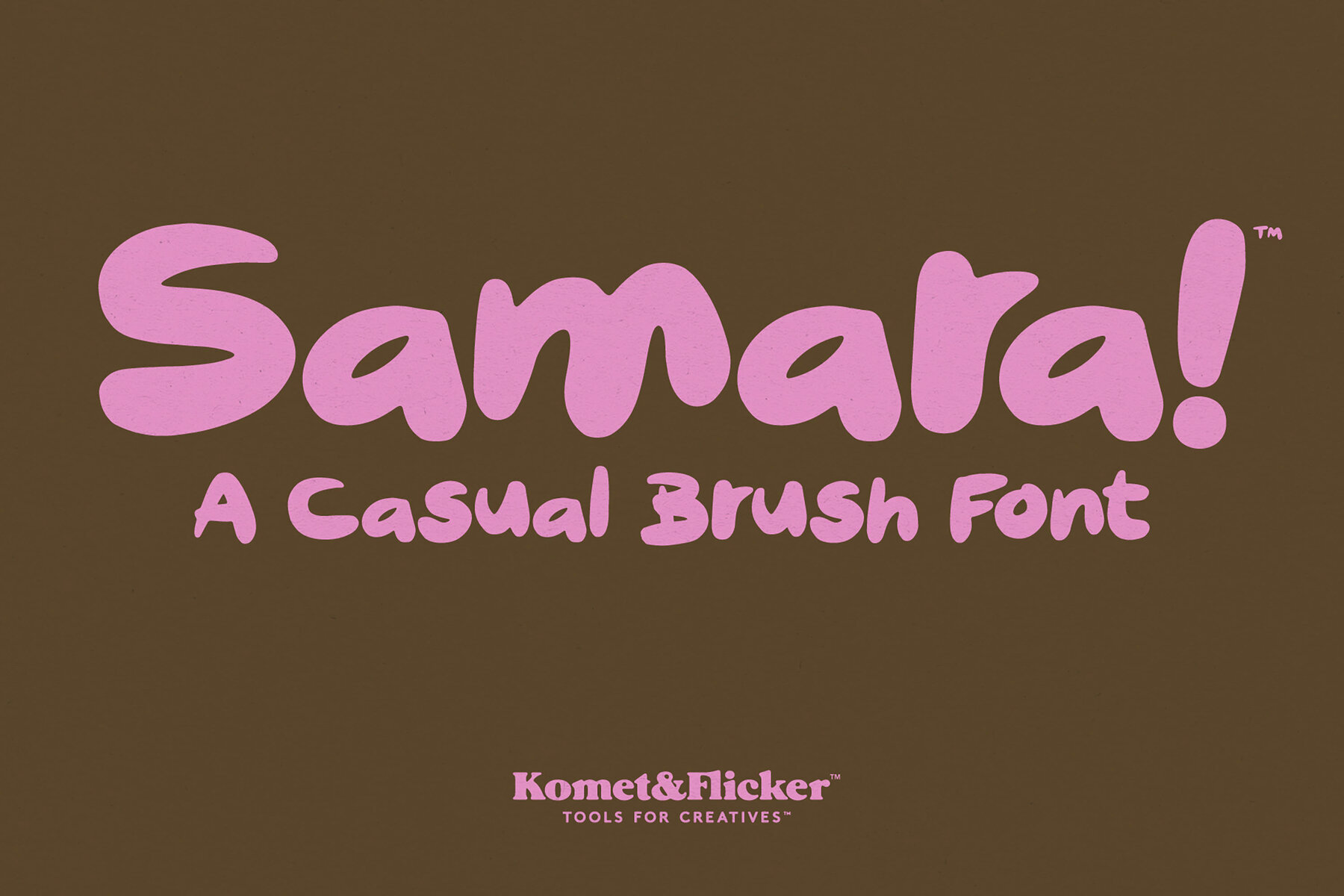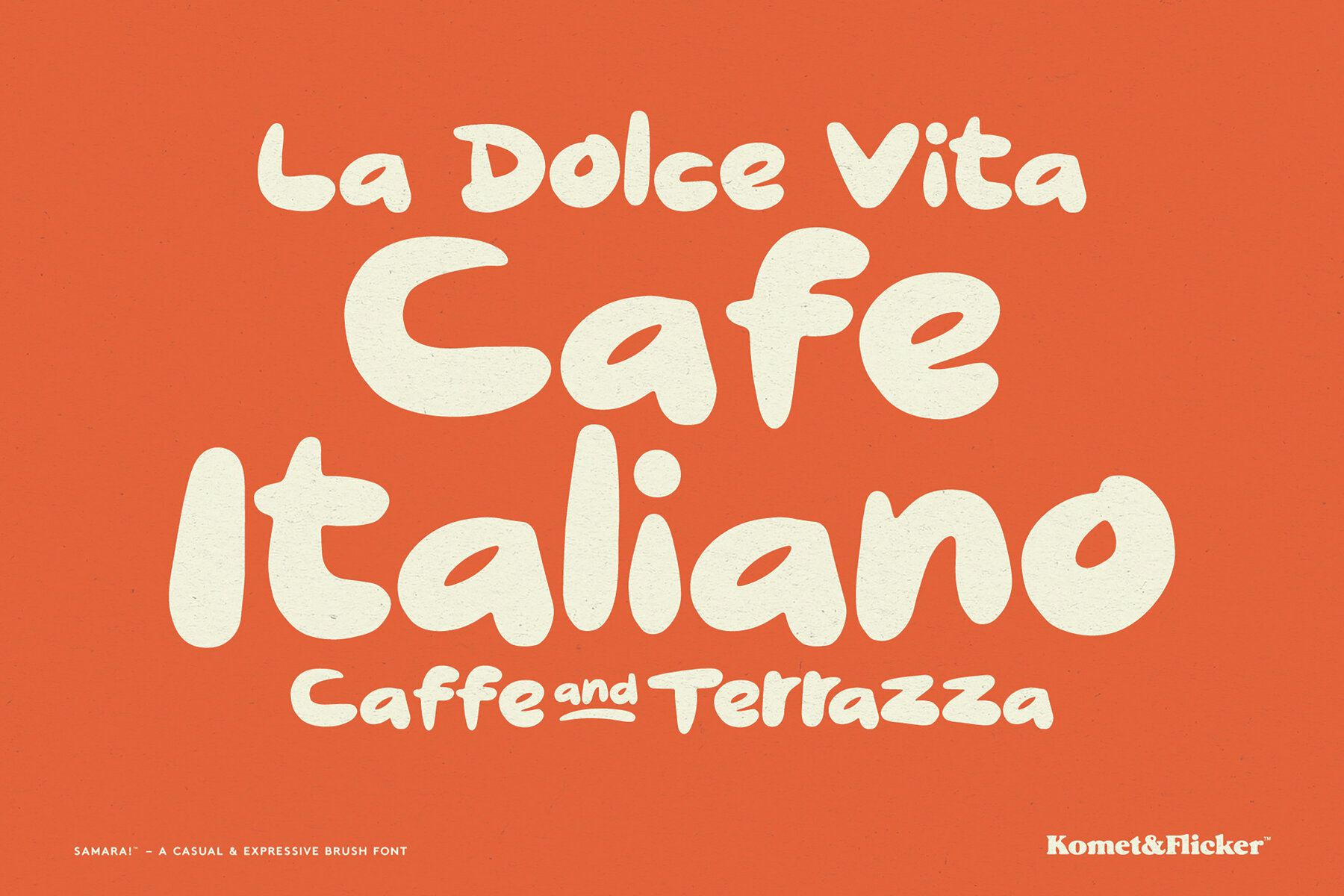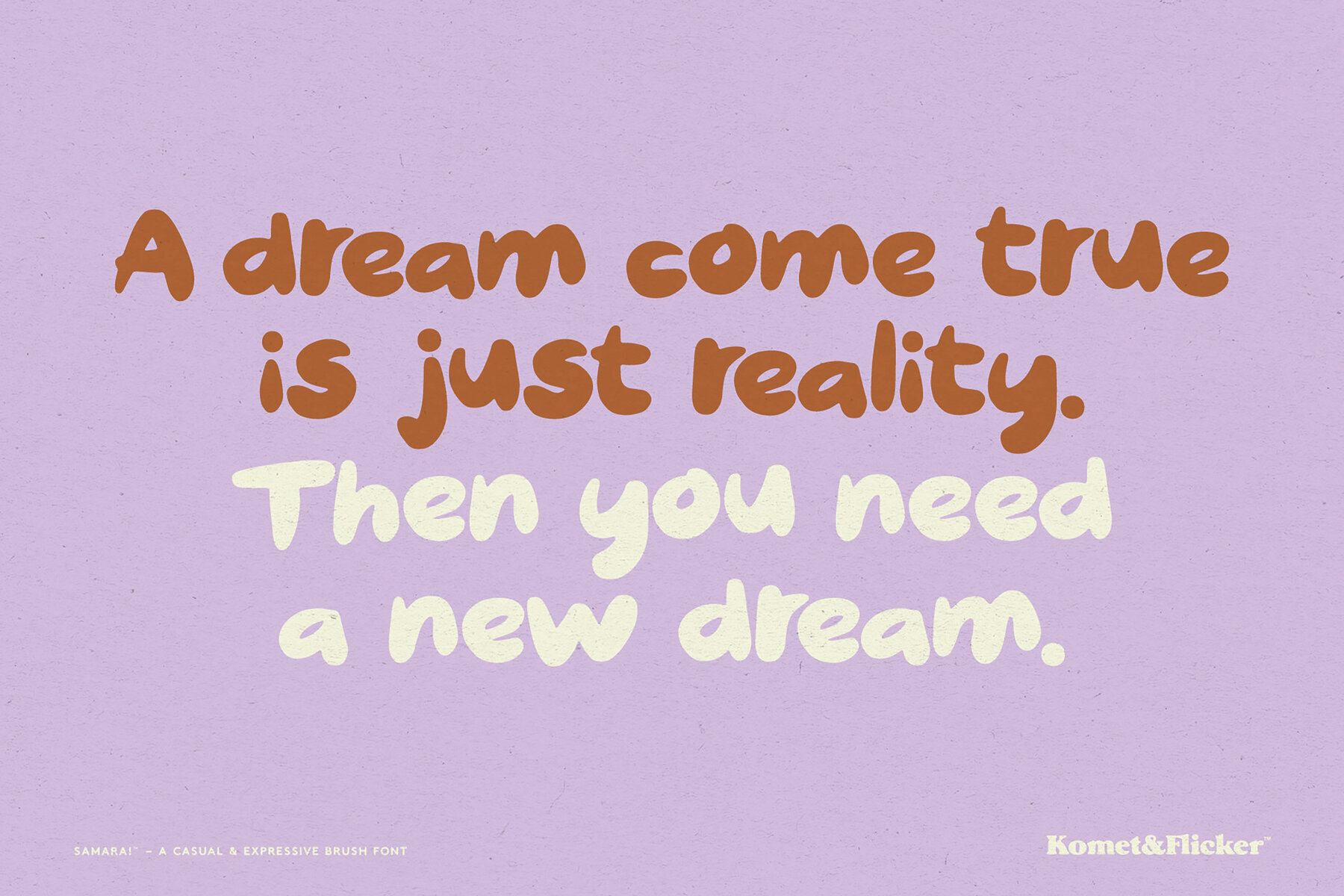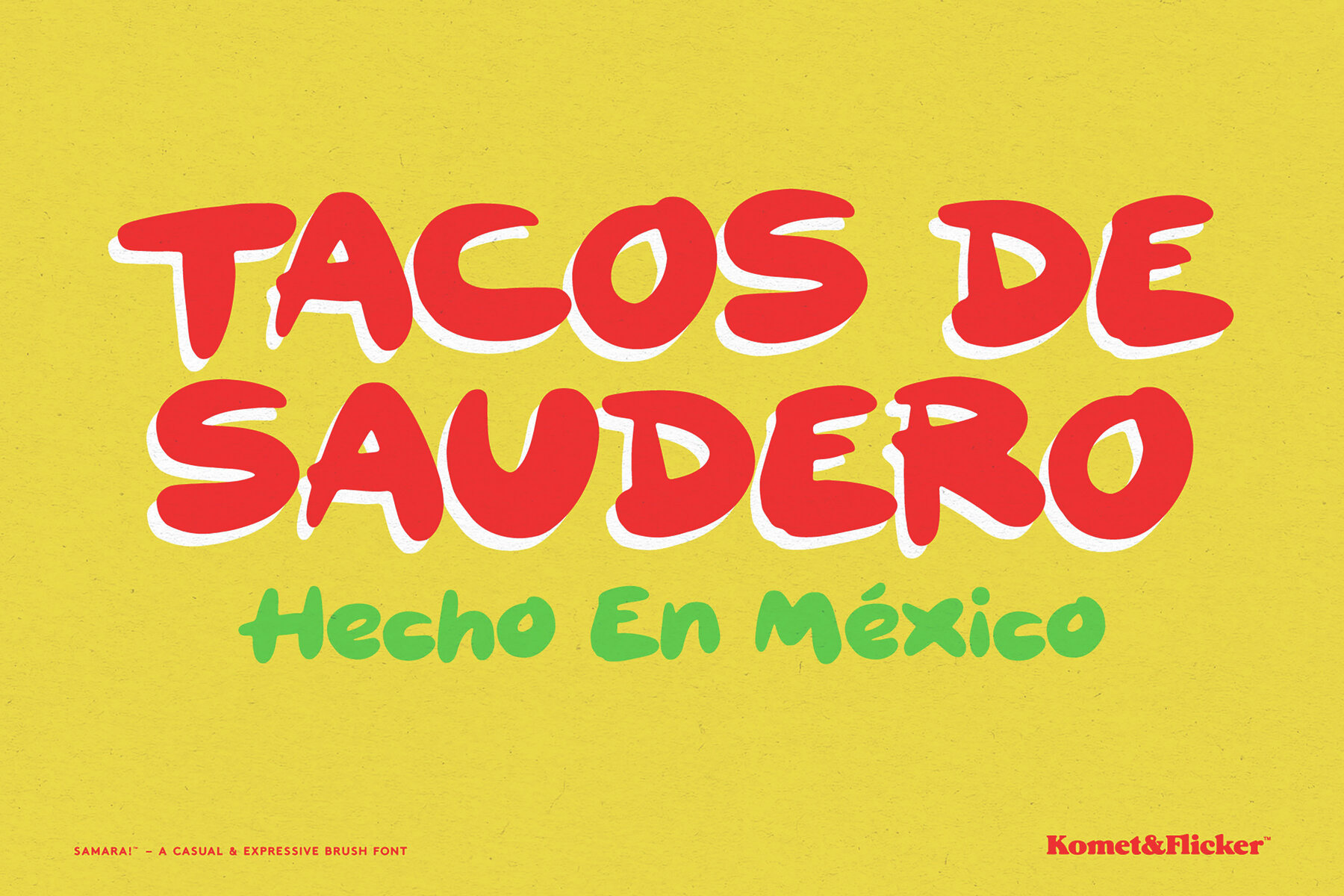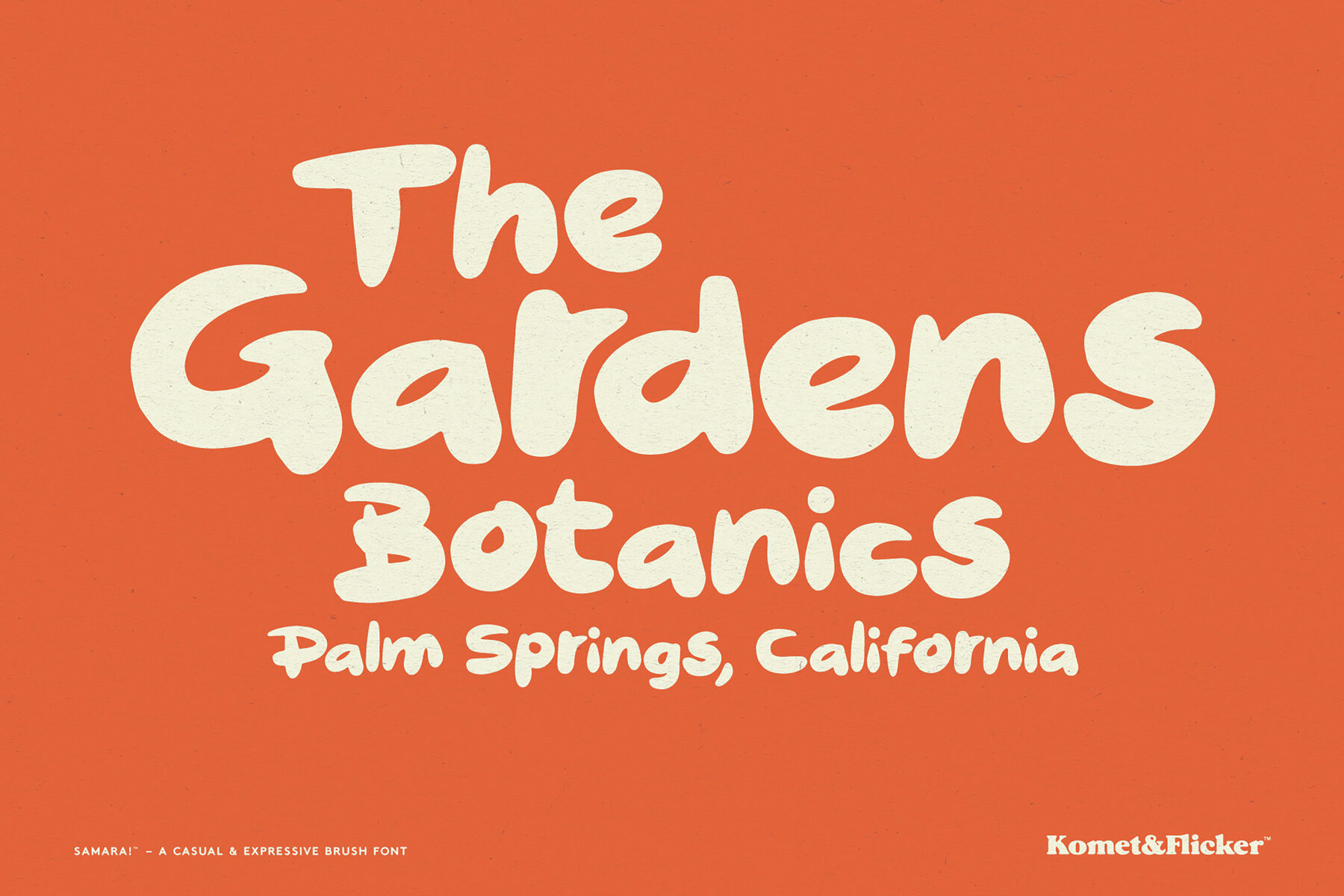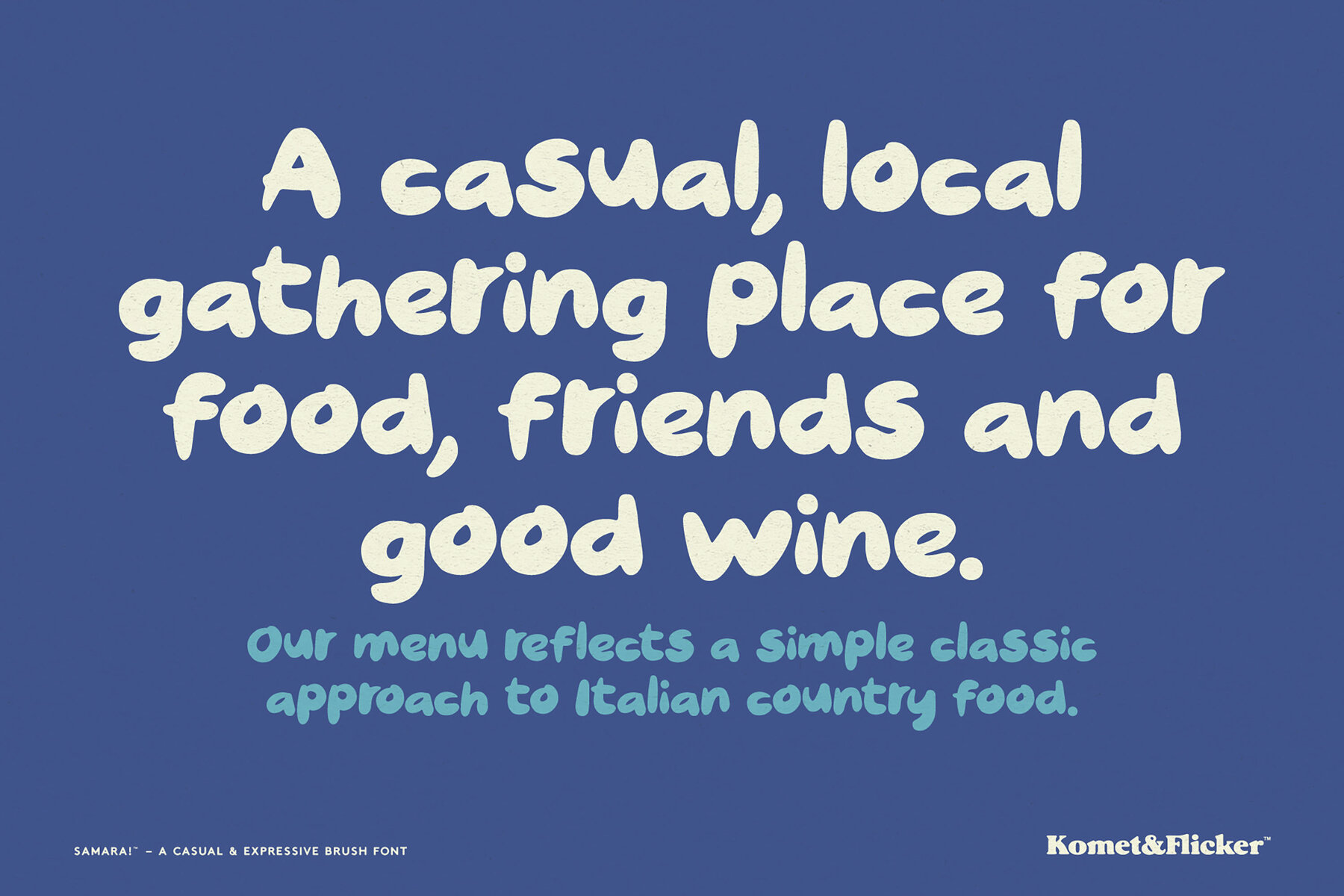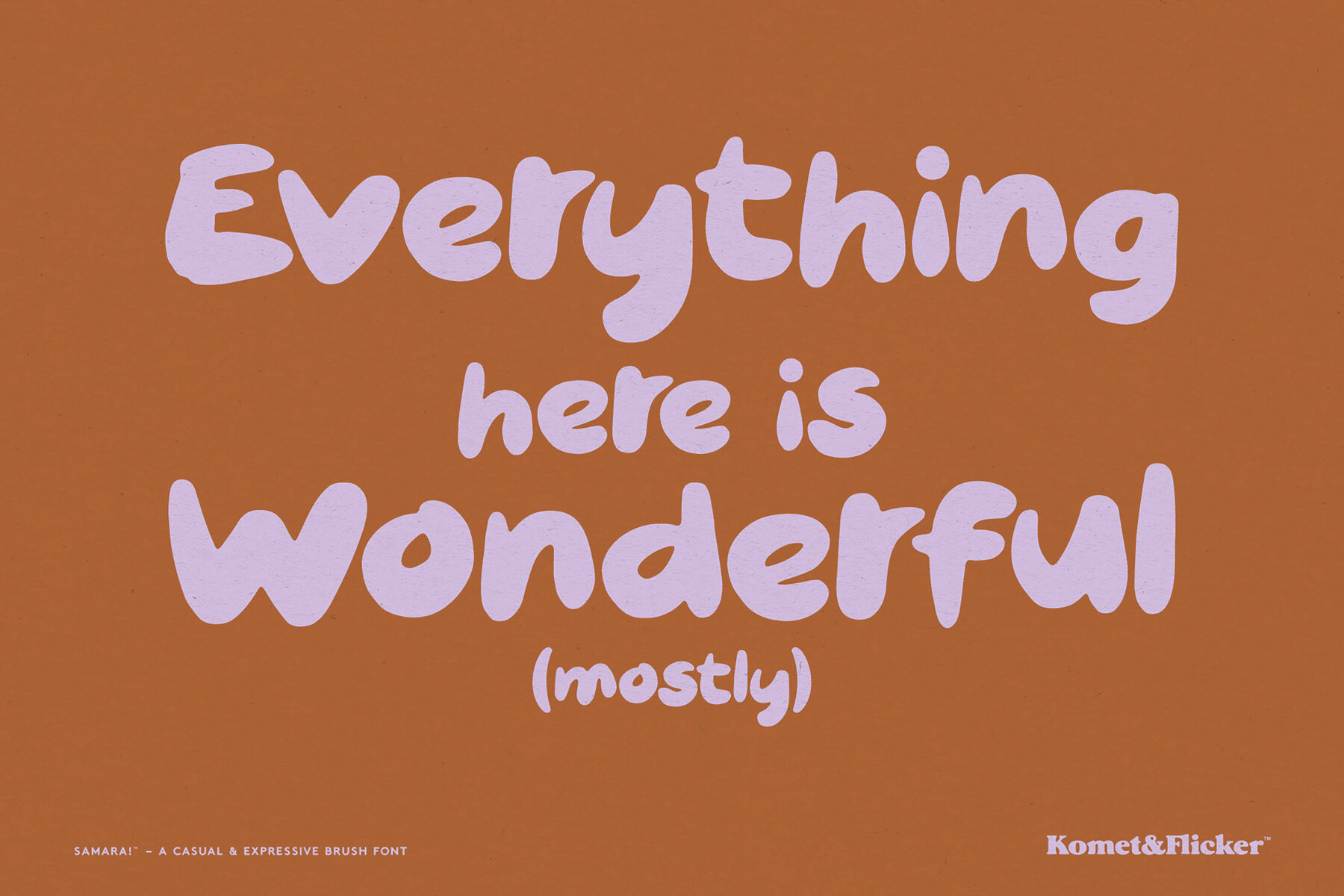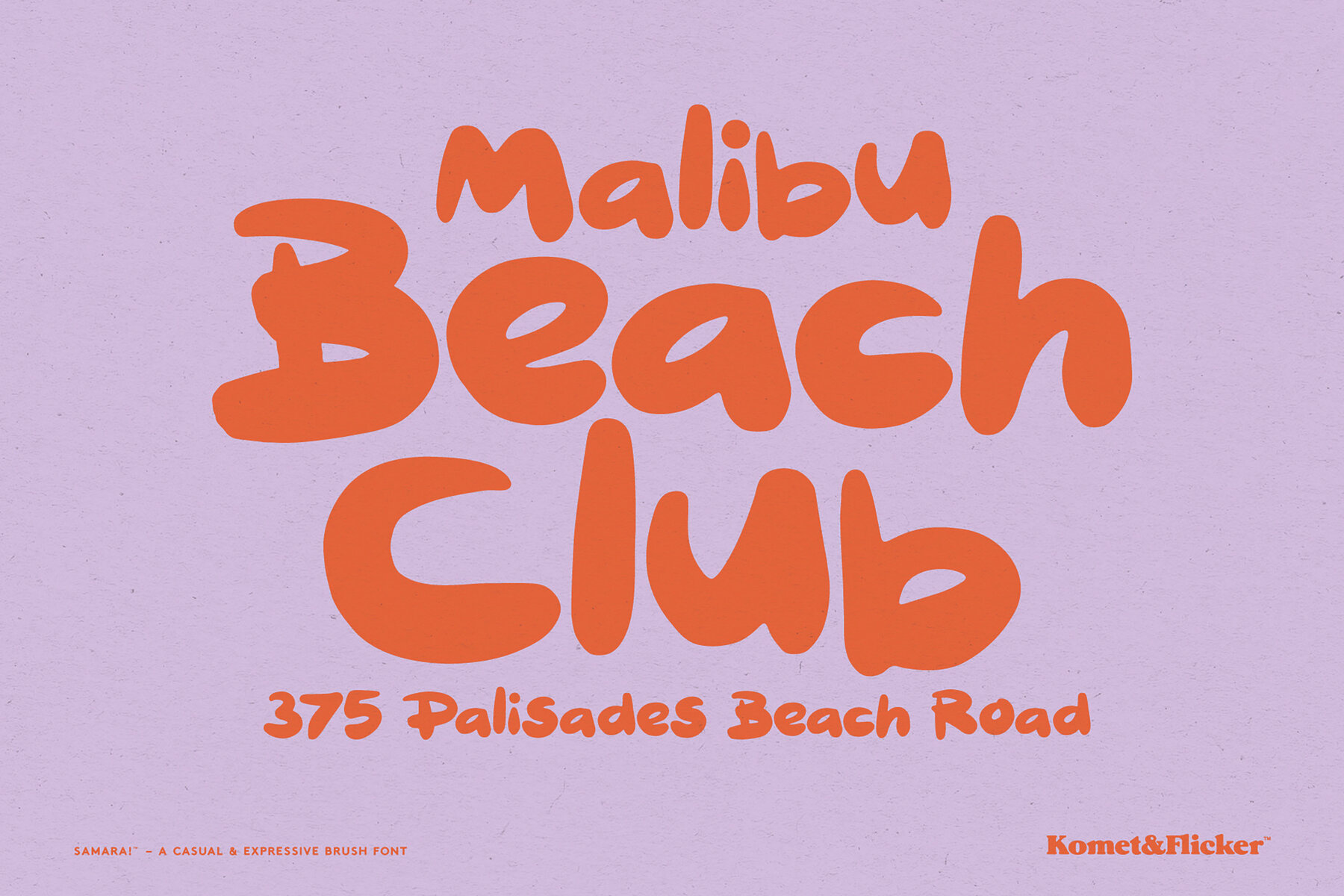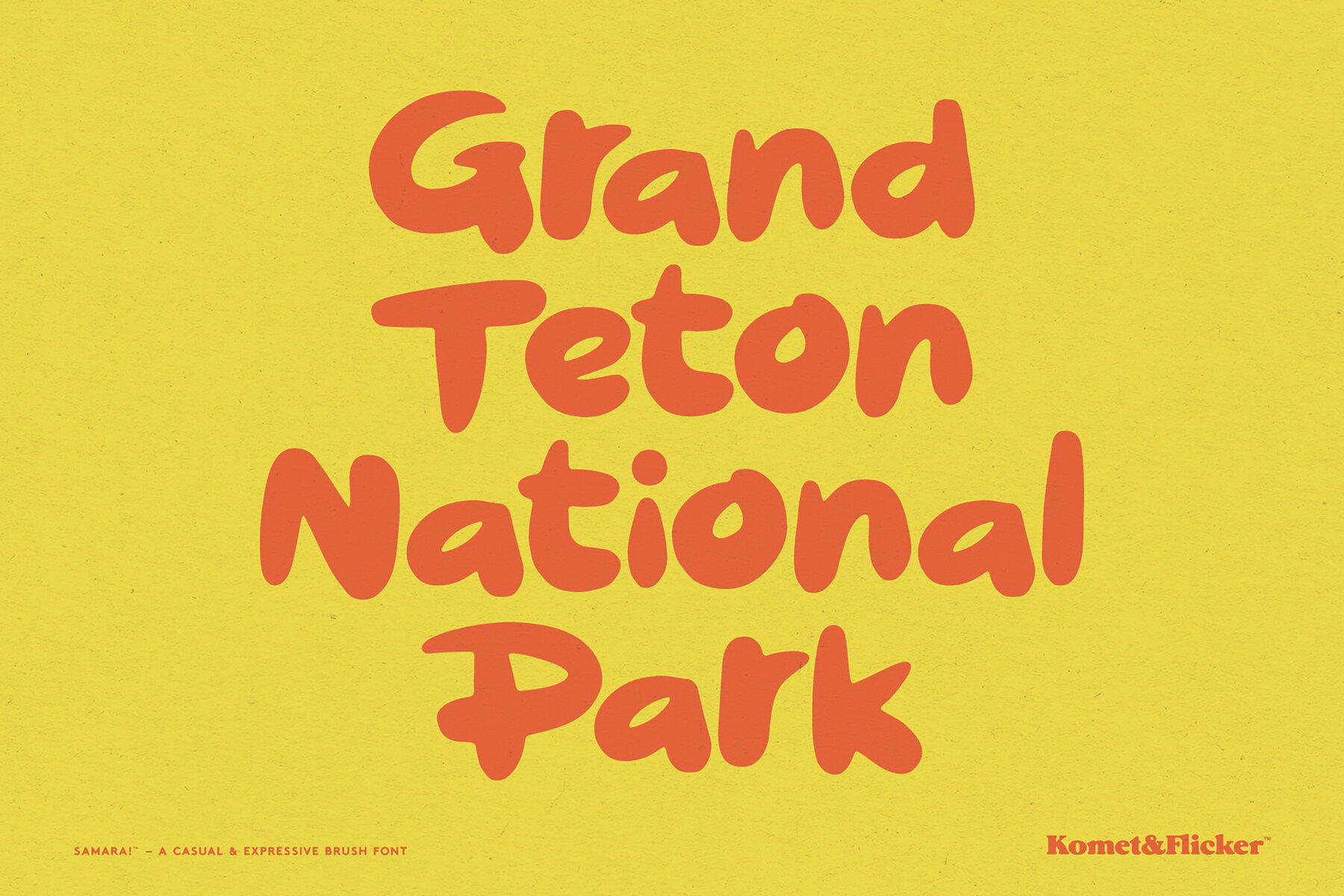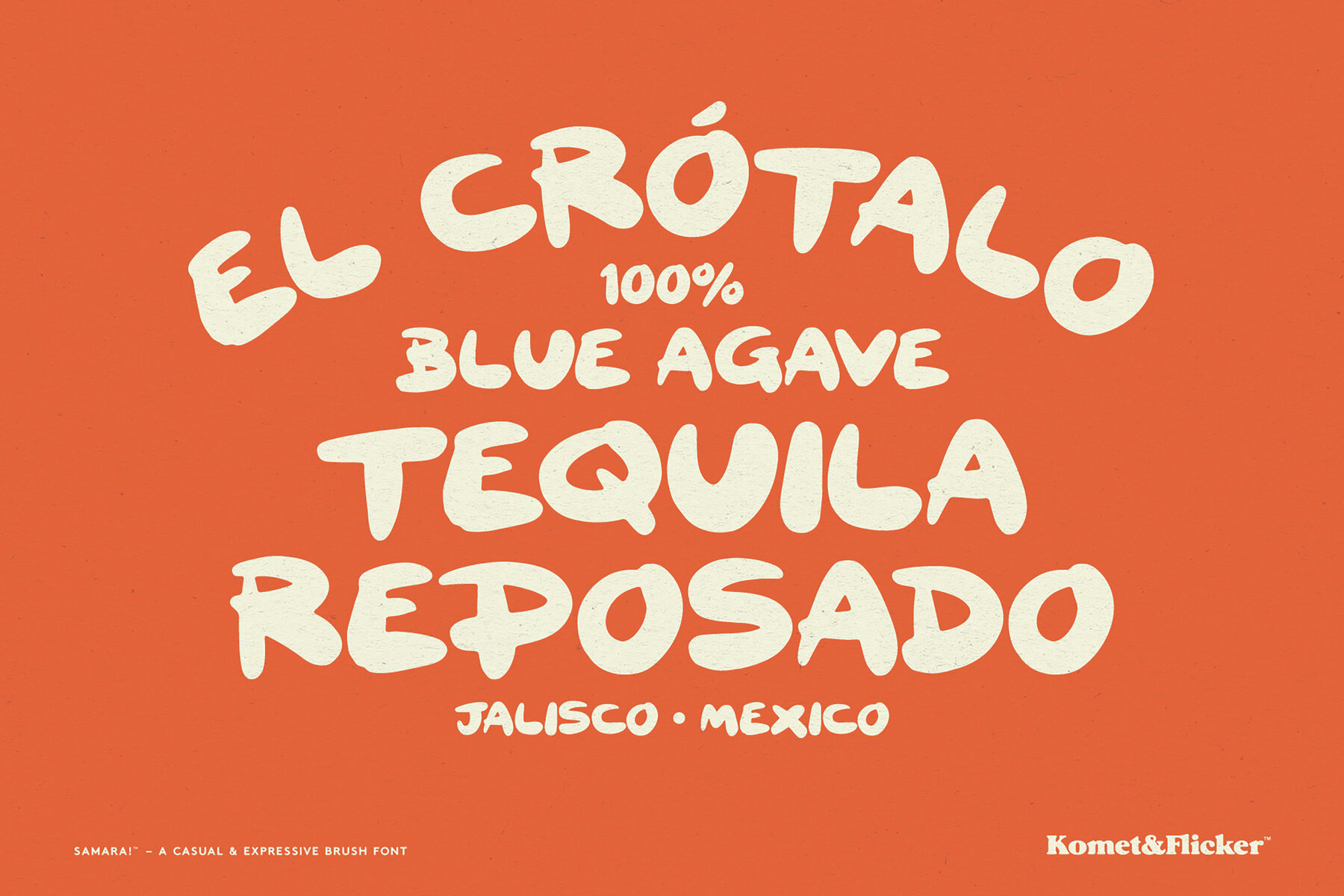
Samara Font
Samara Bold
Inject a dose of personality into your designs with Samara, a hand-drawn brush script font that exudes charm and spontaneity. The font's loose strokes and casual flow craft a playful and inviting appearance, ideal for those seeking to add a natural touch to their projects. Samara's dynamic character turns simple text into expressive and captivating displays, offering an organic feel to every word. Whether you're branding or designing, this font offers both movement and elegance in each line. Access the extra custom glyphs with ease in Illustrator's "Type → Glyphs" panel or Photoshop's "Type → Panels → Glyphs Panel".Samara: An Expressive Hand-Drawn Brush Script
Features of Samara